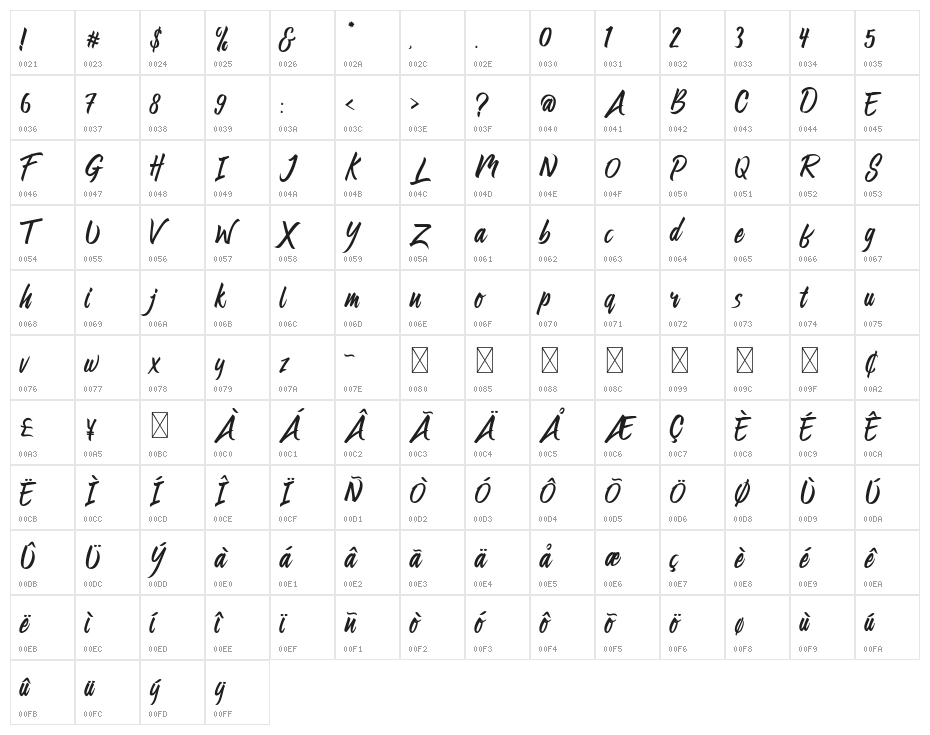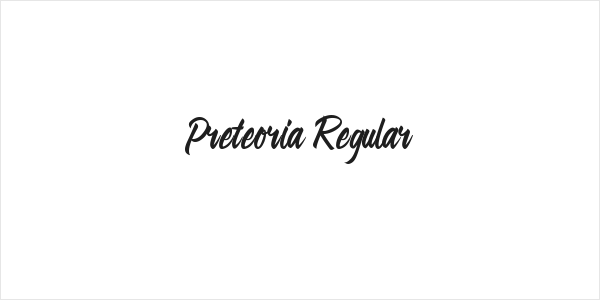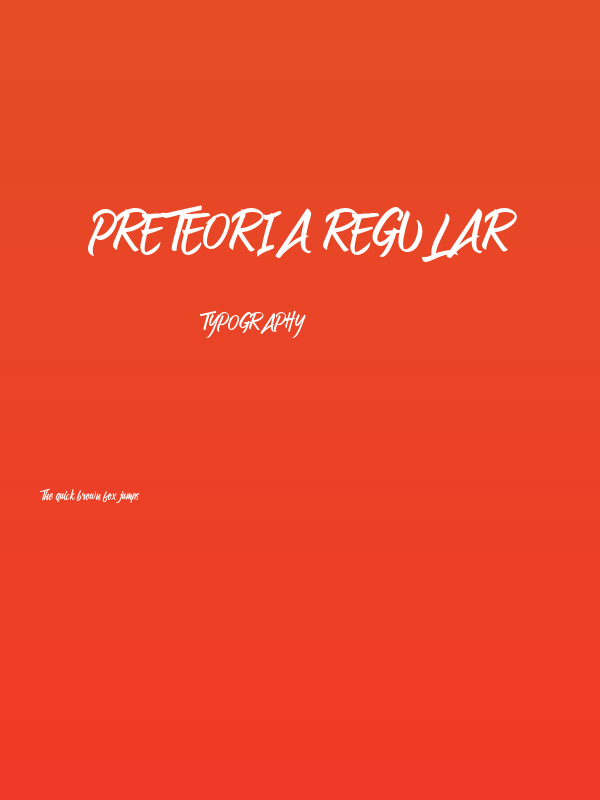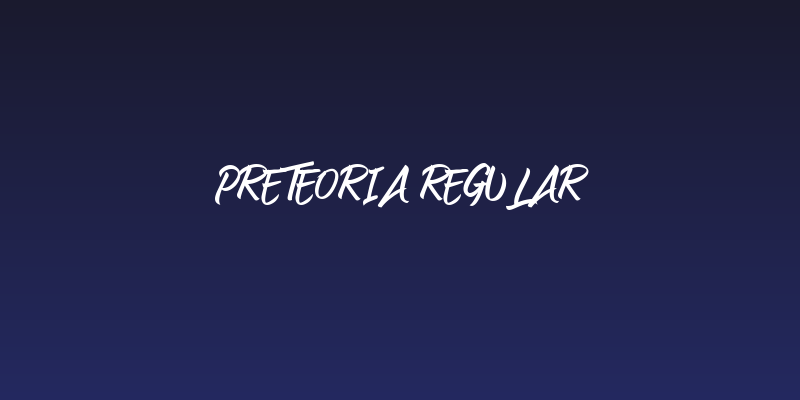
Preteoria Regular Font
Preteoria Regular Description
This font features a dynamic and flowing script style, characterized by its elegant and fluid strokes. The uppercase letters are bold and expressive, with a slight slant that adds a sense of motion and energy. The lowercase letters maintain a consistent flow, enhancing readability while preserving the artistic flair. Numbers and special characters are designed to complement the overall aesthetic, ensuring a cohesive look across all text elements. The font's design is both modern and timeless, making it suitable for a variety of creative applications.
| Proposed Projects | Ideal for branding, invitations, greeting cards, and artistic projects that require a touch of elegance and personality. |